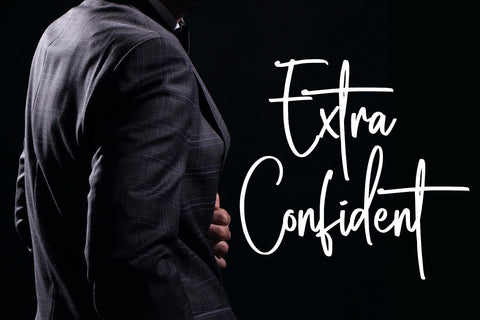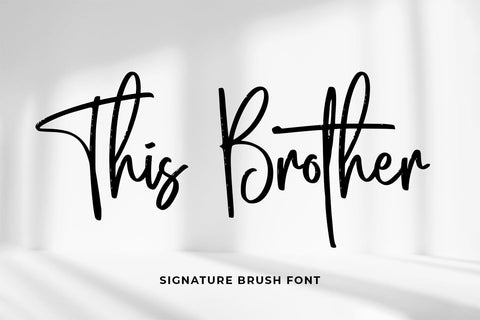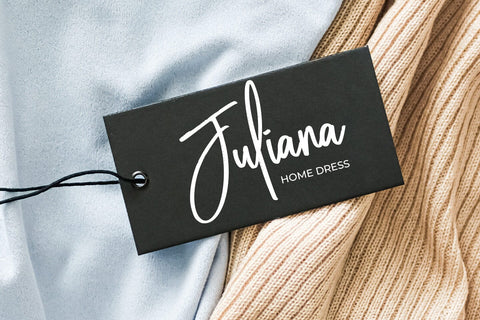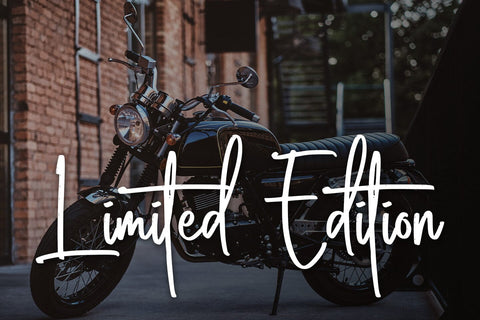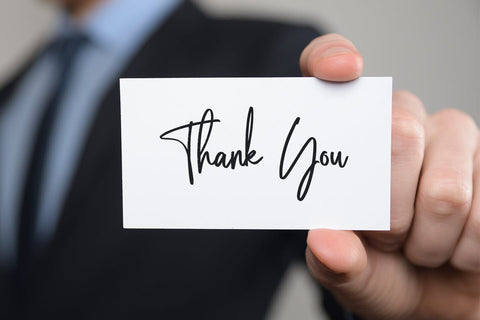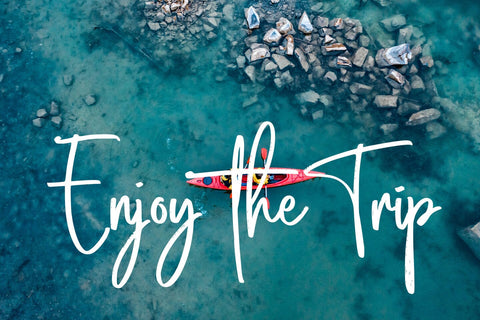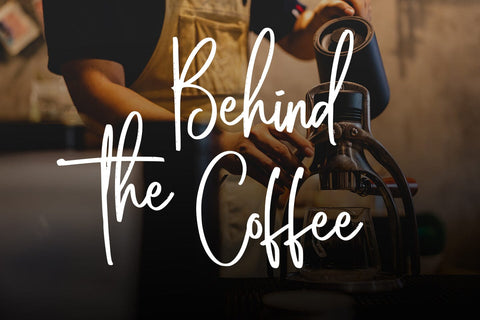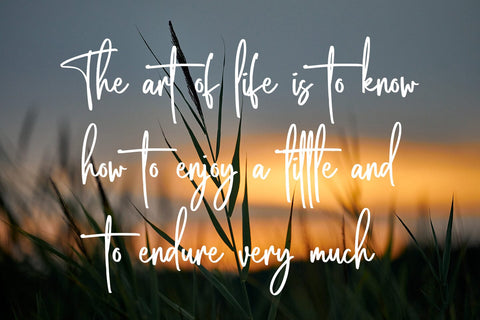
This Brother
introducing
THIS BROTHER
- signature brush font -
THIS BROTHER is a very cool signature font in brush style.
It is great for branding, packaging, wedding invitation, logos, t-shirt designs, tote bag designs, cards, banners, social media, and more.